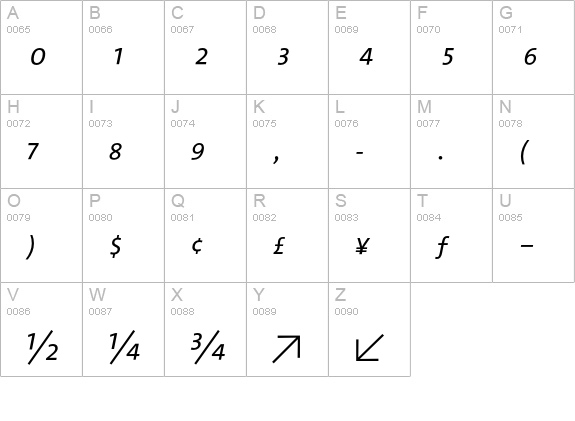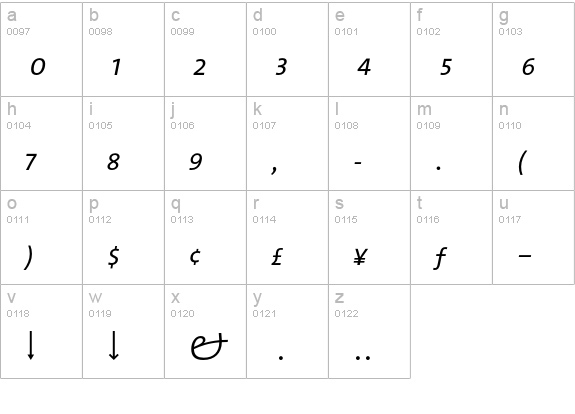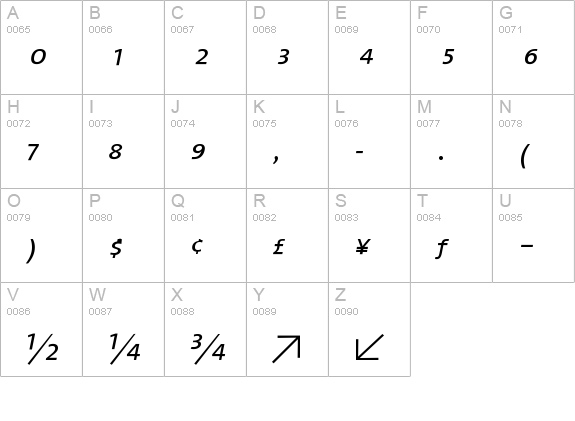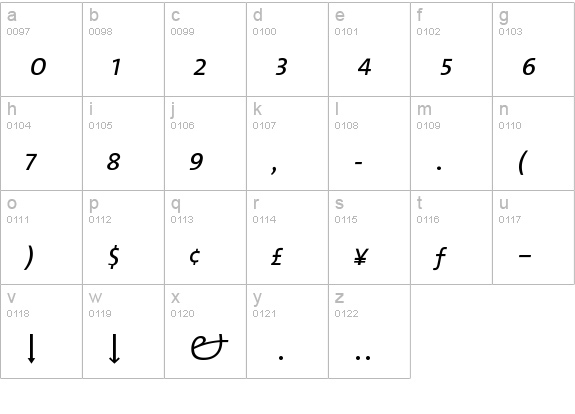
TheSans Light Expert Italic Font Details
TheSans Light Expert Italic is a refined, elegant, italic variant in the TheSans typeface family \xE2\x80\x94 well suited to elegant body text, refined sub-headings, and luxury branding.
TheSans Light Expert Italic font is a stunning and elegant typeface that exudes sophistication and grace. Its sleek and slender letterforms are delicately slanted, adding a touch of dynamic movement to your designs. The expertly designed italics lend a sense of style and finesse, making it perfect for projects that require a touch of elegance. With its minimalistic and clean design, TheSans Light Expert Italic font is incredibly versatile and can be used for a wide range of purposes. Whether you're creating a logo, designing a brochure, or crafting a website, this font will enhance your work and give it a professional and polished look. What sets TheSans Light Expert Italic font apart is that it is not only visually appealing but also freely available to download. You can easily access this exquisite font at FontsMarket.com, where you can enjoy its beauty and versatility without any cost. This means that you can use it in your personal and commercial projects without any restrictions. TheSans Light Expert Italic font is a true gem in the world of typography. Its graceful curves and refined details make it a standout choice for designers who want to elevate their creations. With its freely available download at FontsMarket.com, you have the opportunity to enhance your designs with this stunning font without breaking the bank. Don't miss out on this exceptional font that combines elegance and accessibility in a perfect package.